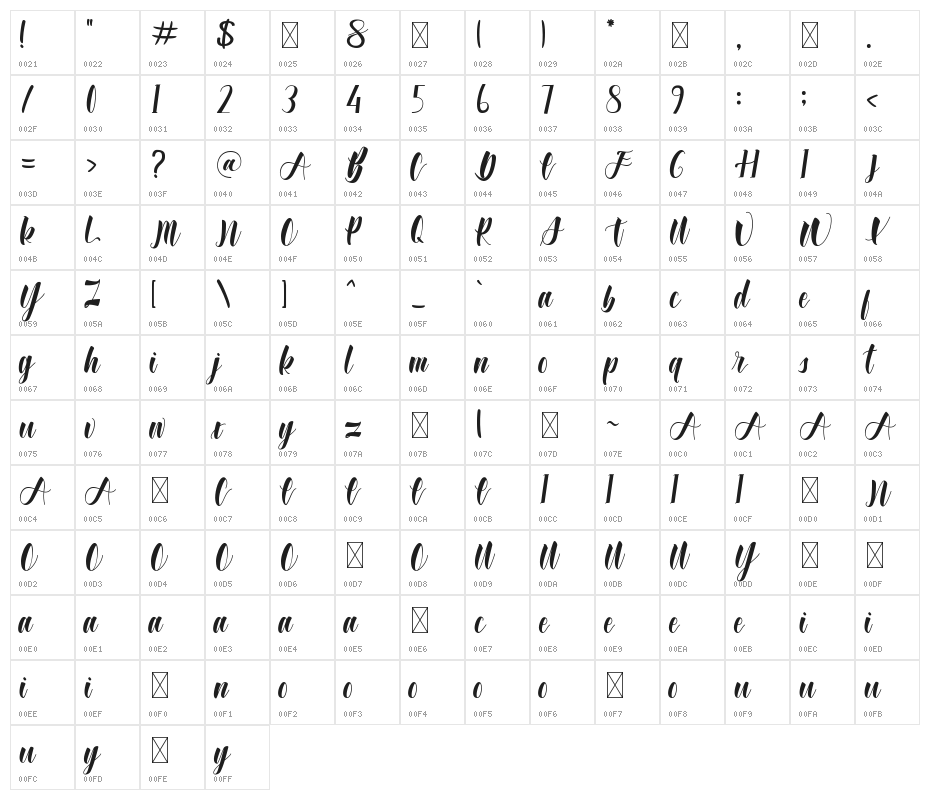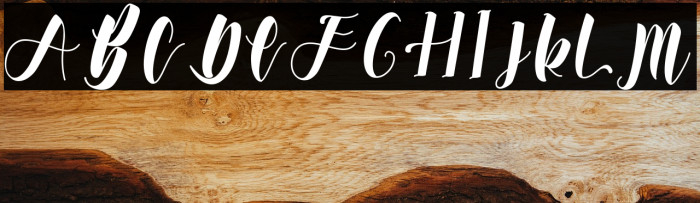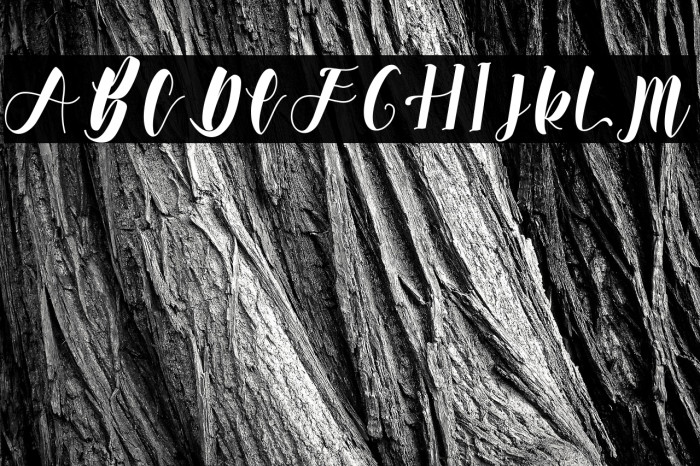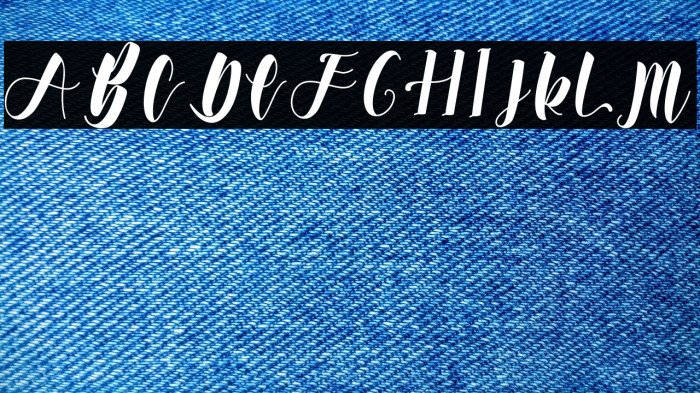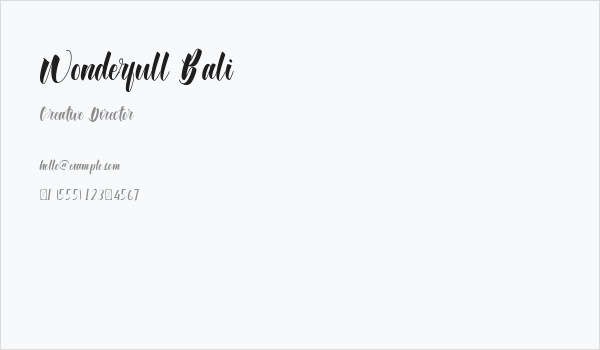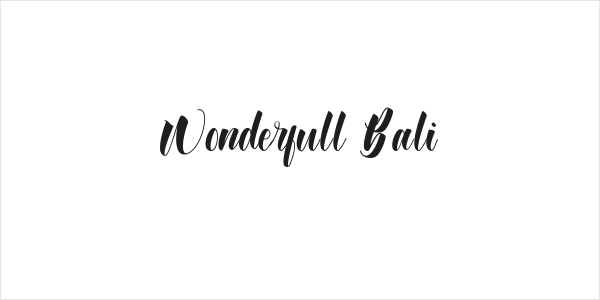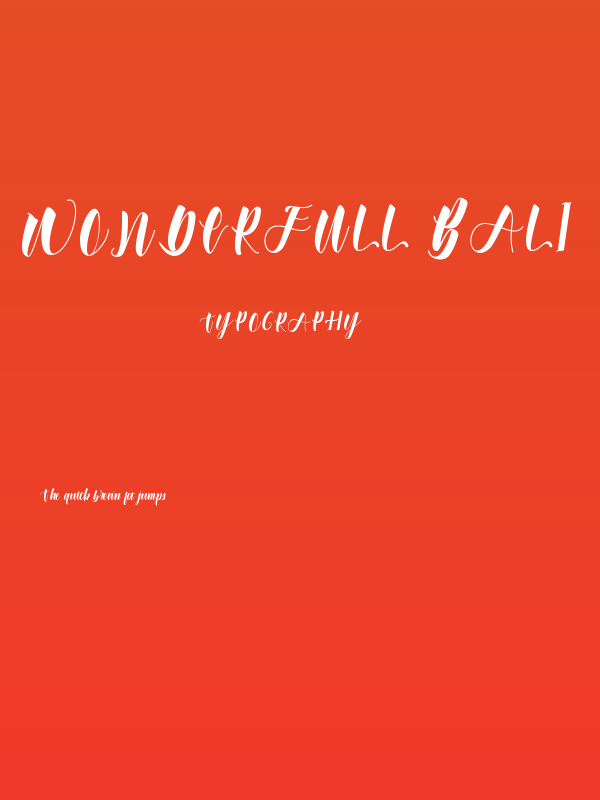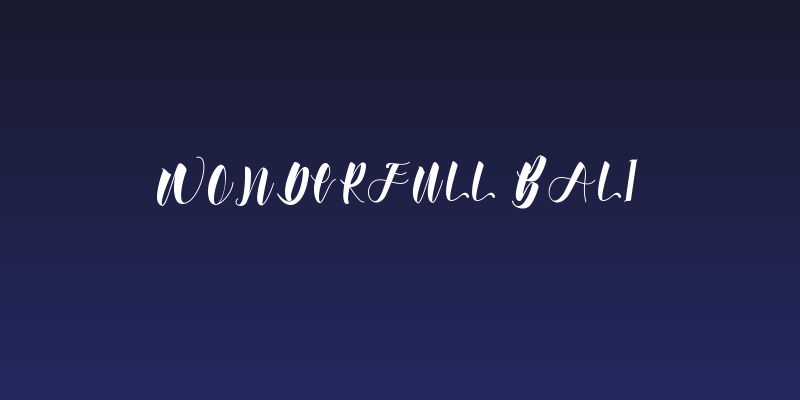
Wonderfull Bali Font
Wonderfull Bali Description
This font features an elegant and flowing script style, characterized by its cursive and calligraphic elements. The uppercase letters are ornate with sweeping curves and flourishes, giving a sense of sophistication and grace. The lowercase letters maintain a consistent flow, enhancing readability while preserving the decorative nature. The numerals are stylishly crafted, complementing the overall aesthetic. Special characters are designed with similar flair, ensuring a cohesive look across all glyphs. This font exudes a sense of elegance and artistic flair, making it suitable for projects that require a touch of sophistication.
| Overall Style | Elegant, Artistic |
| Use Case | Logos, Invitations, Decorative Text |
| Proposed Projects | Ideal for wedding invitations, elegant branding, greeting cards, and artistic projects. |